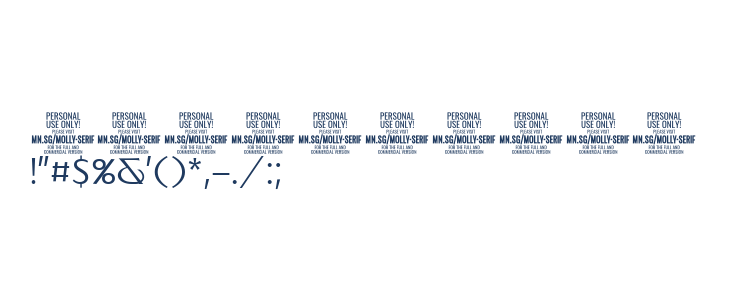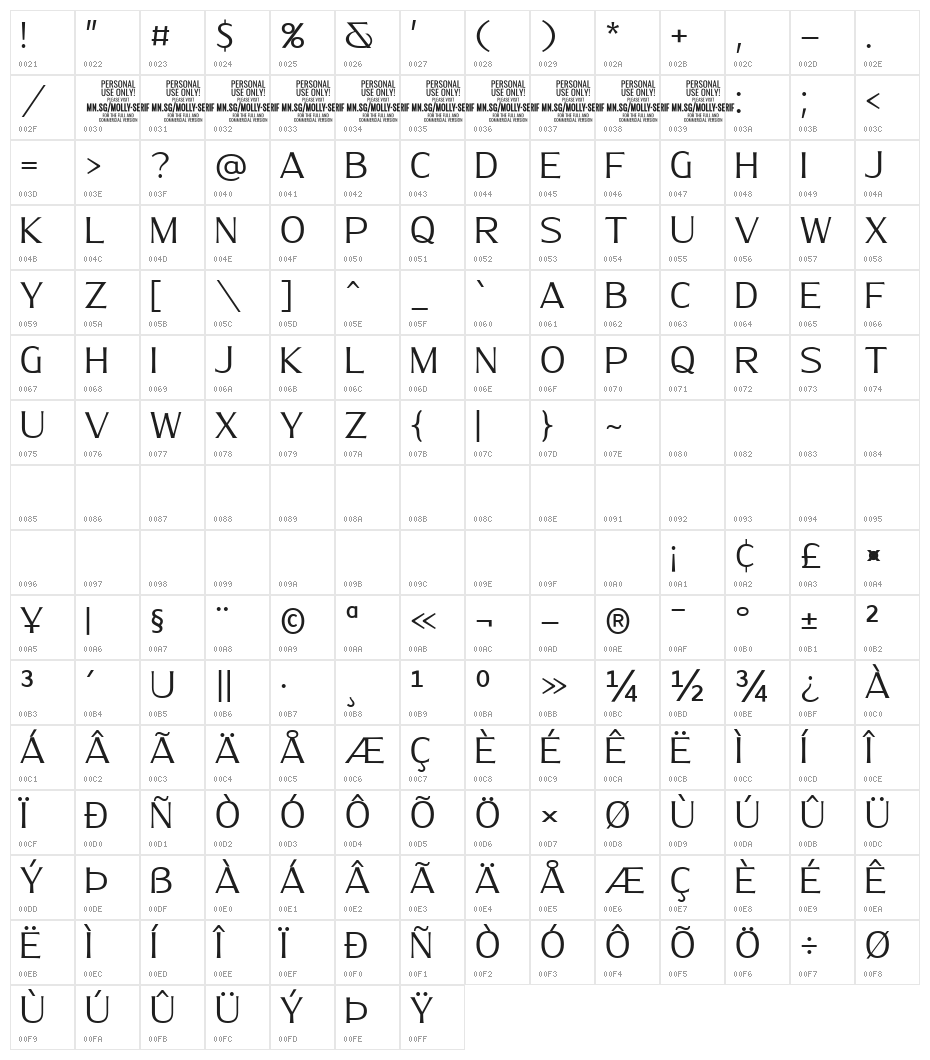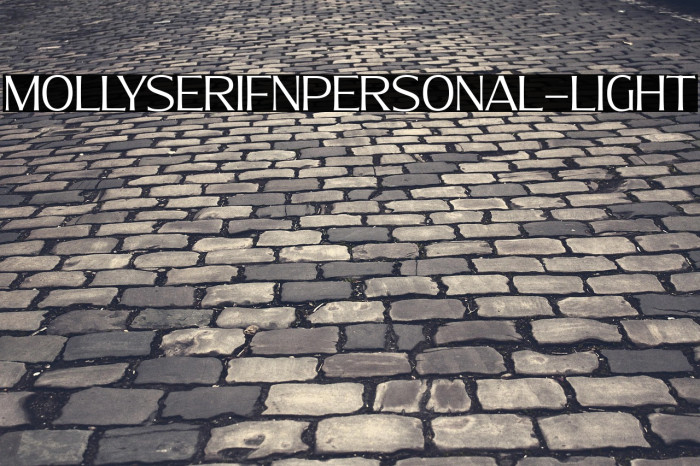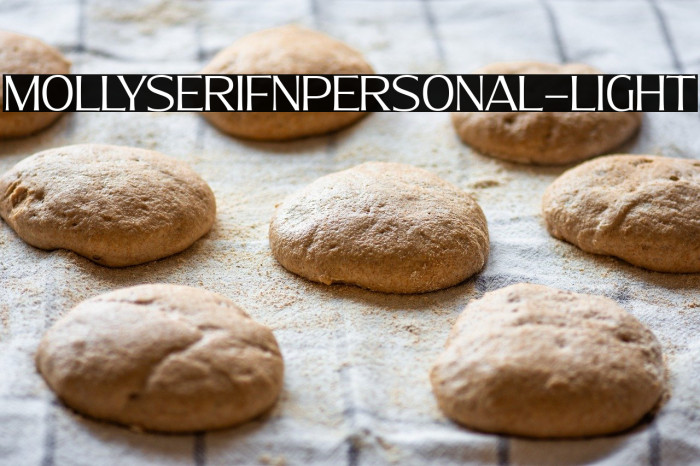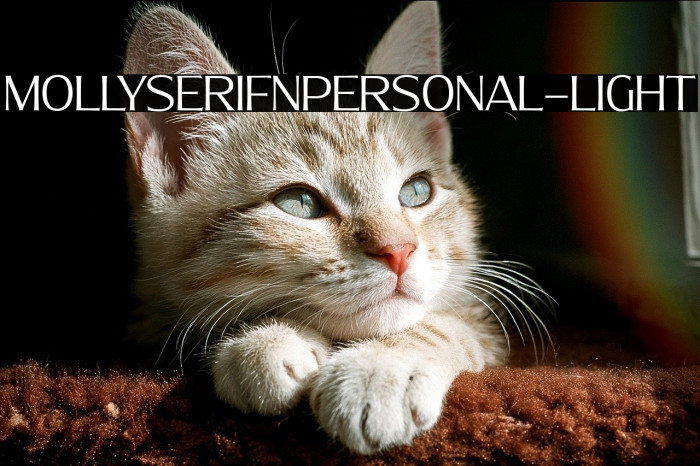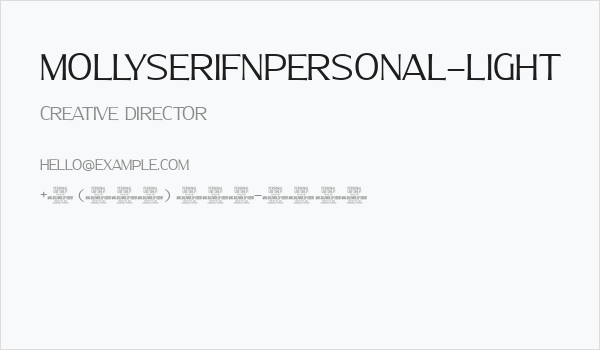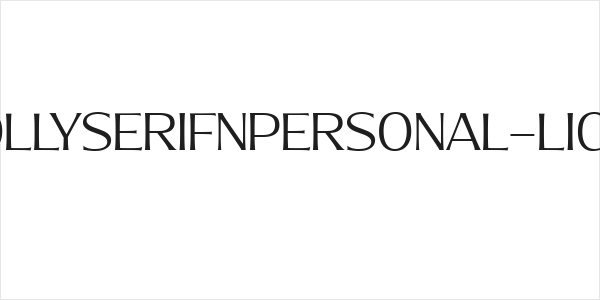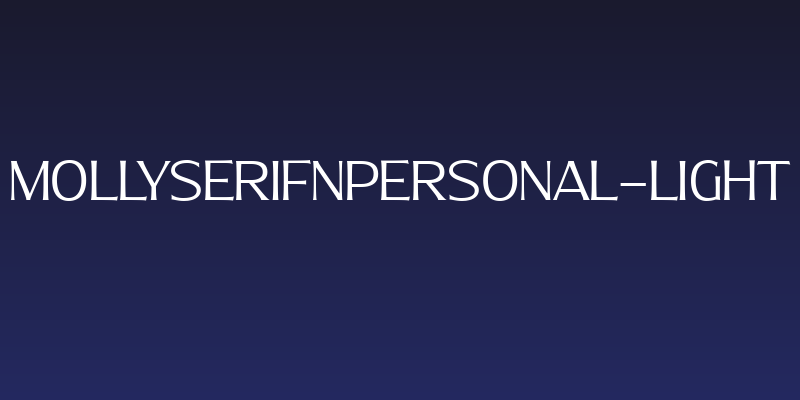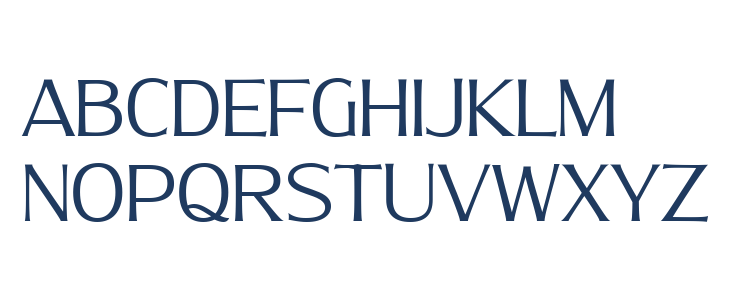
MollySerifNPERSONAL-Light Font
MollySerifNPERSONAL-Light Description
This font features a unique blend of modern and classic elements, characterized by its distinct serif style. The uppercase letters exhibit a sophisticated elegance with slightly elongated forms and subtle curves, providing a refined appearance. The lowercase letters maintain a consistent style, offering a harmonious balance between readability and aesthetic appeal. The numerals are clear and well-defined, ensuring legibility across various applications. Special characters are thoughtfully designed, complementing the overall style of the font. This font's versatility makes it suitable for a wide range of design projects.